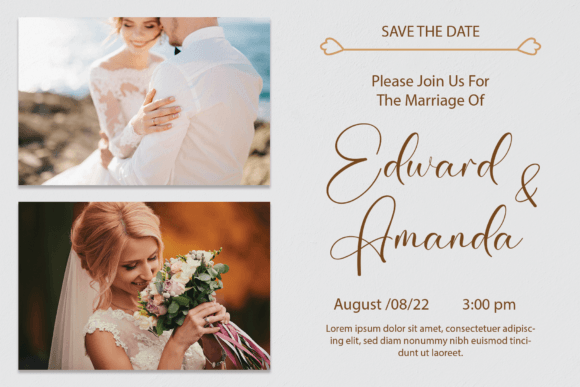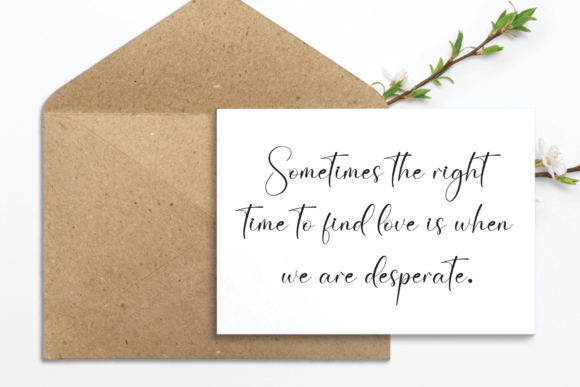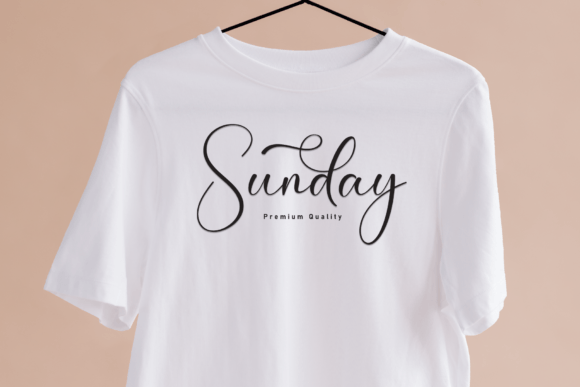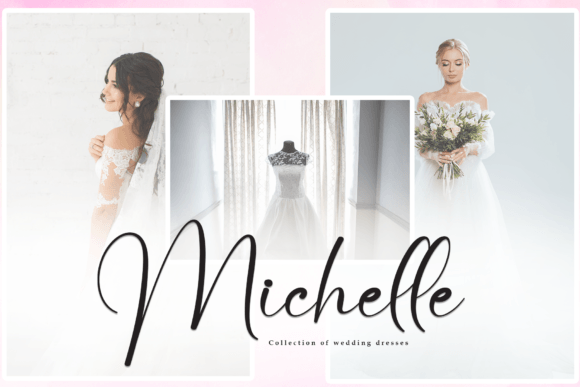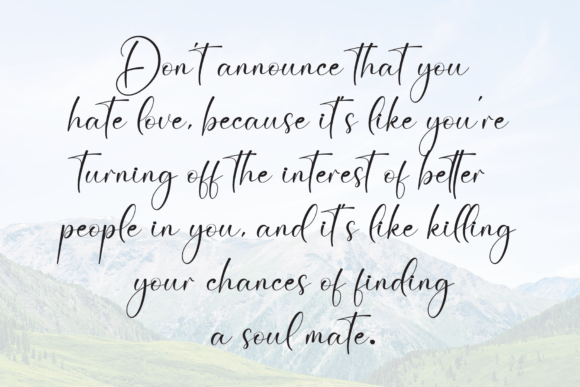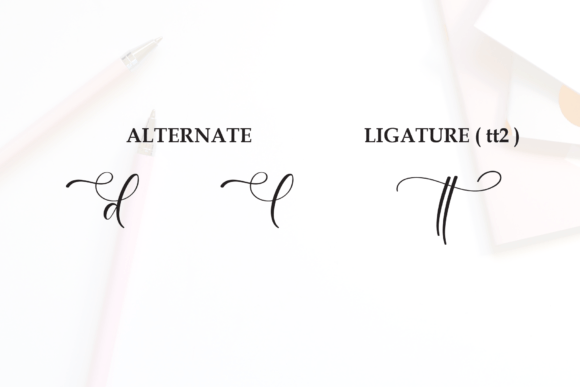
Introducing Handwritten Font: Elevate Your Designs with a Stylish and Confident Touch
Are you looking for a font that can add a touch of personality and style to your designs? Look no further than Handwritten Font, a gorgeous and bold handwritten font that is perfect for headlines and logotype projects. With its strong, confident, and dynamic appearance, this font is sure to make your designs stand out from the crowd.
The Characteristics of Handwritten Font
Handwritten Font is a carefully crafted font that is designed to give your designs a stylish and nostalgic touch. Its bold and dynamic appearance makes it perfect for headlines, logotypes, and any other design project where you want to make a statement. The font features a range of characteristics that make it unique and versatile, including:
- Strong and Confident: Handwritten Font has a bold and confident appearance that is perfect for designs where you want to make a statement.
- Dynamic and Expressive: The font features a range of dynamic and expressive strokes that add a touch of personality to your designs.
- Nostalgic Character: Handwritten Font has a nostalgic character that is reminiscent of traditional handwriting.
Why Choose Handwritten Font?
There are many reasons why Handwritten Font is the perfect choice for your design projects. Here are just a few:
- Versatility: Handwritten Font is a versatile font that can be used for a wide range of design projects, from headlines and logotypes to posters and packaging.
- Unique Appearance: Handwritten Font has a unique appearance that will set your designs apart from the crowd.
How to Use Handwritten Font in Your Designs
Using Handwritten Font in your designs is easy. Here are a few tips to get you started:
- Use it for Headlines: Handwritten Font is perfect for headlines and titles, where its bold and dynamic appearance can really make an impact.
- Experiment with Colors: The font looks great in a range of colors, so don’t be afraid to experiment and find the perfect color for your design.
- Pair it with Other Fonts: Handwritten Font can be paired with other fonts to create a unique and interesting design.
The Benefits of Handwritten Fonts in Design
Handwritten fonts, like Handwritten Font, have a range of benefits when it comes to design. Here are just a few:
- Emotional Connection: Handwritten fonts can create an emotional connection with the viewer, as they are often reminiscent of traditional handwriting.
- Personality: Handwritten fonts can add a touch of personality to your designs, making them more engaging and interesting.
- Flexibility: Handwritten fonts can be used for a wide range of design projects, from formal to informal.
Handwritten Font is a gorgeous and bold handwritten font that is perfect for designers and crafters looking to add a stylish and confident touch to their designs. With its strong, dynamic, and nostalgic appearance, this font is sure to make your designs stand out from the crowd. Whether you’re looking for a font for headlines, logotypes, or any other design project, Handwritten Font is a great choice.